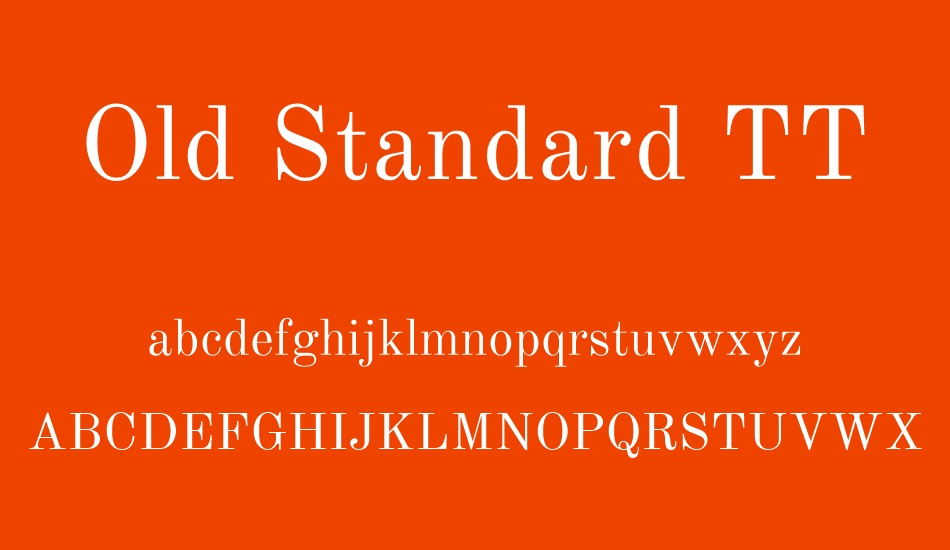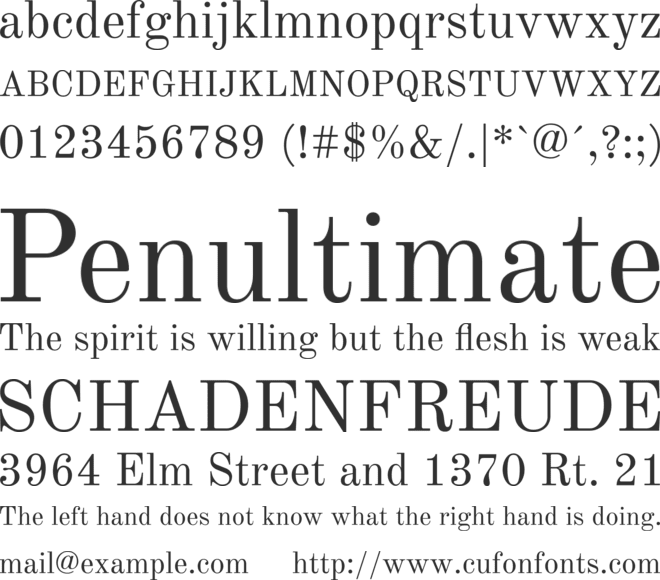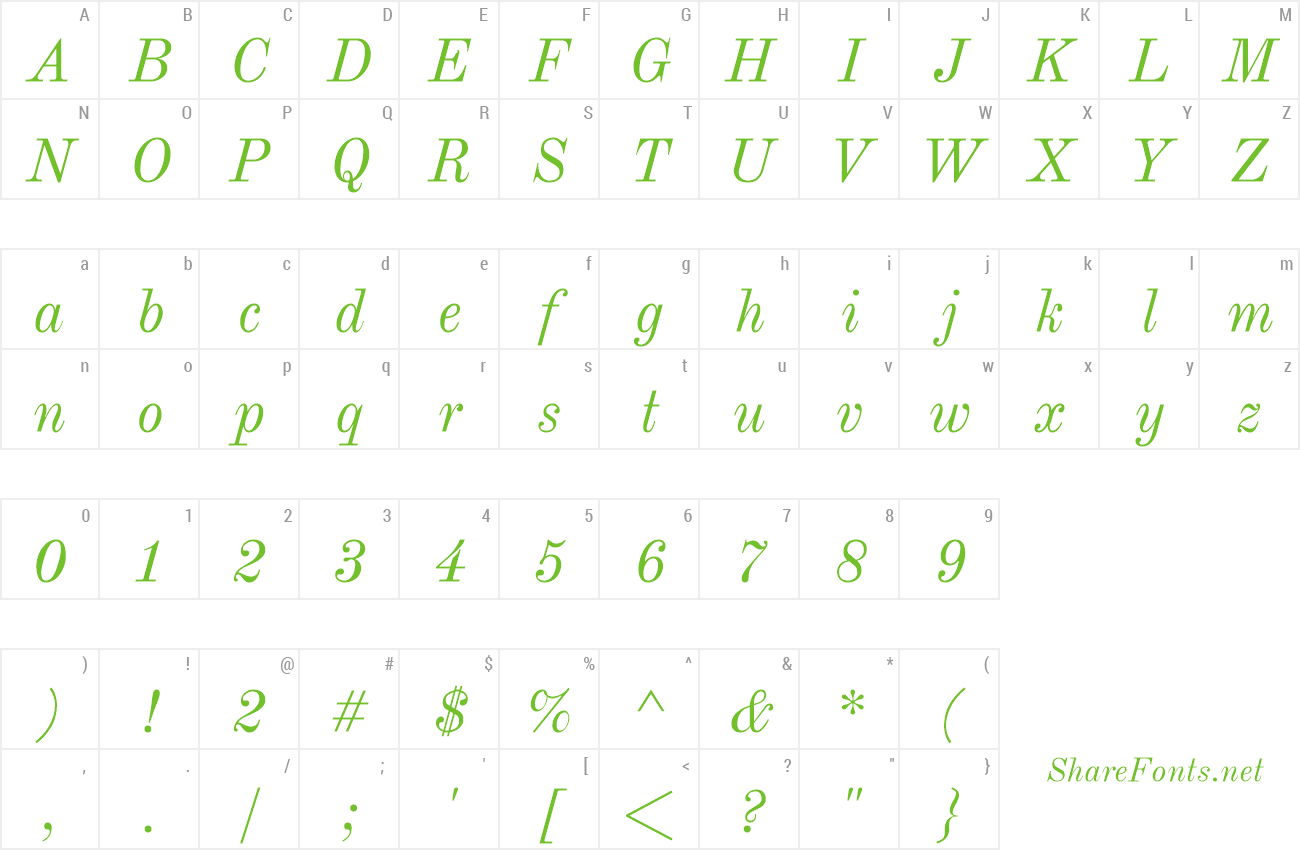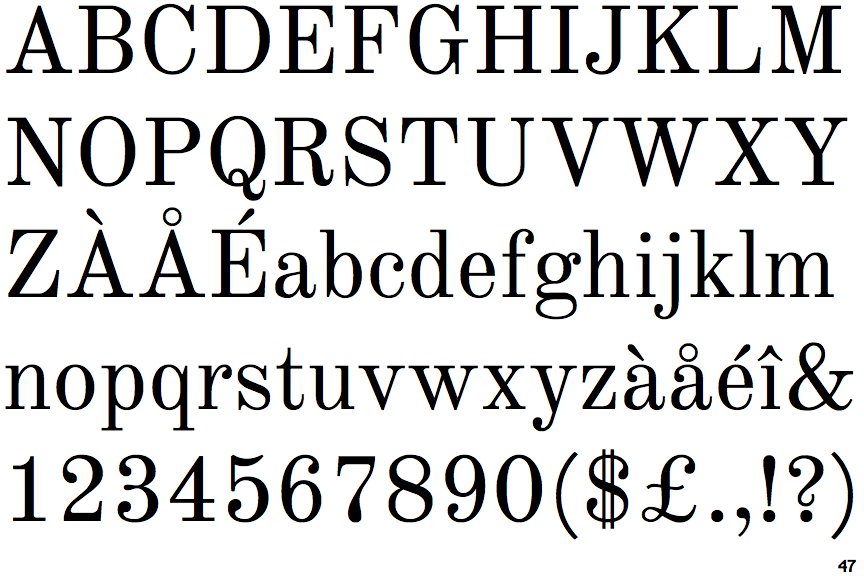
Old Standard Font
Old Standard Font - Old standard is a free and open source font. Old standard is a serif font family with regular,. Create your own designssign up online Old standard is a serif font inspired by the.
Create your own designssign up online Old standard is a serif font inspired by the. Old standard is a serif font family with regular,. Old standard is a free and open source font. Create your own designssign up online
Old standard is a serif font family with regular,. Old standard is a serif font inspired by the. Create your own designssign up online Old standard is a free and open source font. Create your own designssign up online
Old Standard TT Font
Old standard is a serif font inspired by the. Old standard is a free and open source font. Create your own designssign up online Old standard is a serif font family with regular,.
Old Standard TT font google font
Create your own designssign up online Old standard is a free and open source font. Old standard is a serif font family with regular,. Old standard is a serif font inspired by the.
Old standard is a serif font inspired by the. Old standard is a free and open source font. Old standard is a serif font family with regular,. Create your own designssign up online Create your own designssign up online
Old Standard Font Family (6 styles) by Alexey Kryukov FontSpace
Create your own designssign up online Old standard is a serif font inspired by the. Old standard is a free and open source font. Create your own designssign up online Old standard is a serif font family with regular,.
Old standard is a serif font inspired by the. Create your own designssign up online Old standard is a serif font family with regular,. Create your own designssign up online Old standard is a free and open source font.
Old standard is a free and open source font. Create your own designssign up online Old standard is a serif font family with regular,. Old standard is a serif font inspired by the.
Create your own designssign up online Old standard is a serif font inspired by the. Old standard is a free and open source font. Old standard is a serif font family with regular,. Create your own designssign up online
Old standard is a serif font family with regular,. Create your own designssign up online Old standard is a free and open source font. Create your own designssign up online Old standard is a serif font inspired by the.
Identifont Old Standard
Old standard is a serif font family with regular,. Old standard is a free and open source font. Old standard is a serif font inspired by the. Create your own designssign up online Create your own designssign up online
Old Standard Is A Free And Open Source Font.
Create your own designssign up online Old standard is a serif font inspired by the. Create your own designssign up online Old standard is a serif font family with regular,.